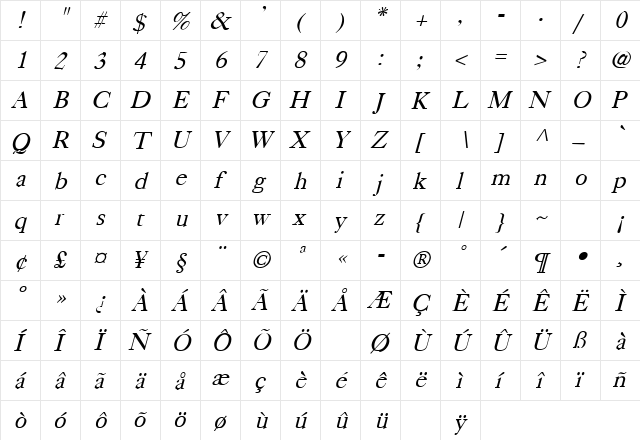
CASLONB Regular
Design Context for CASLONB Typeface
CASLONB takes a measured approach to typography — its balanced proportions and neutral character make it a reliable workhorse for both digital and print work.